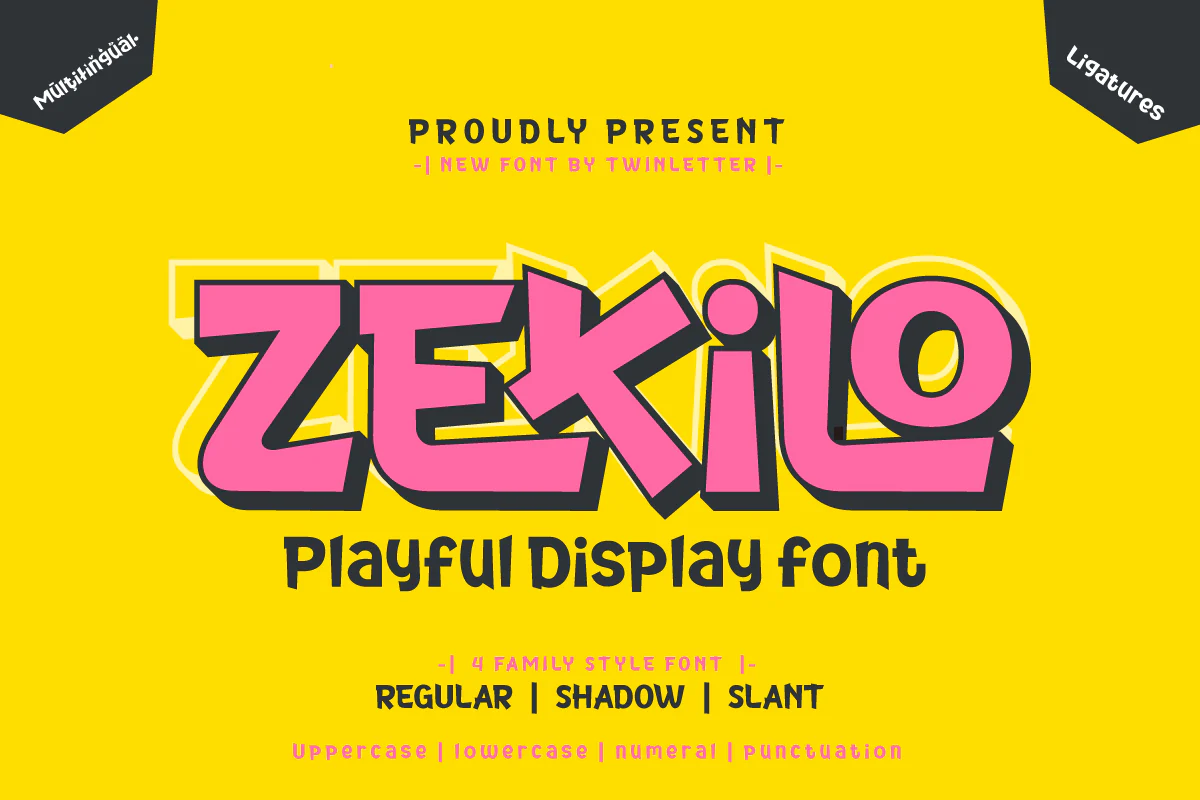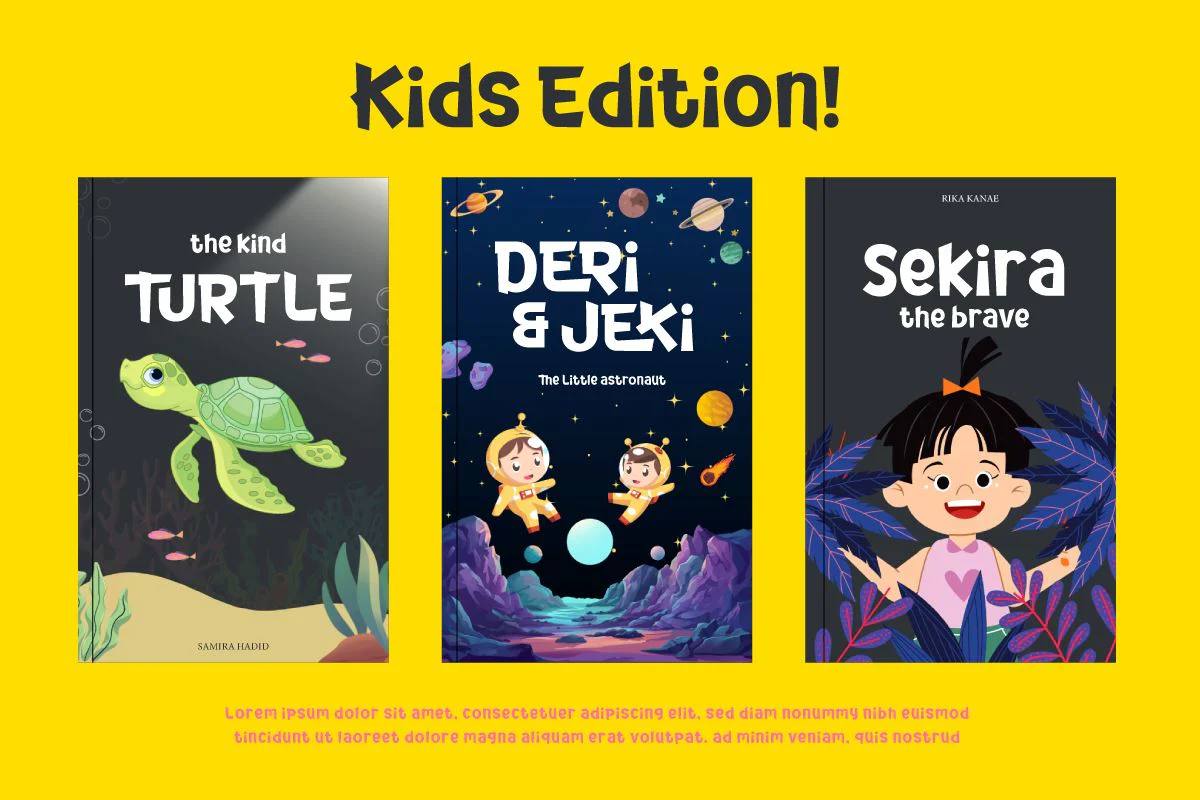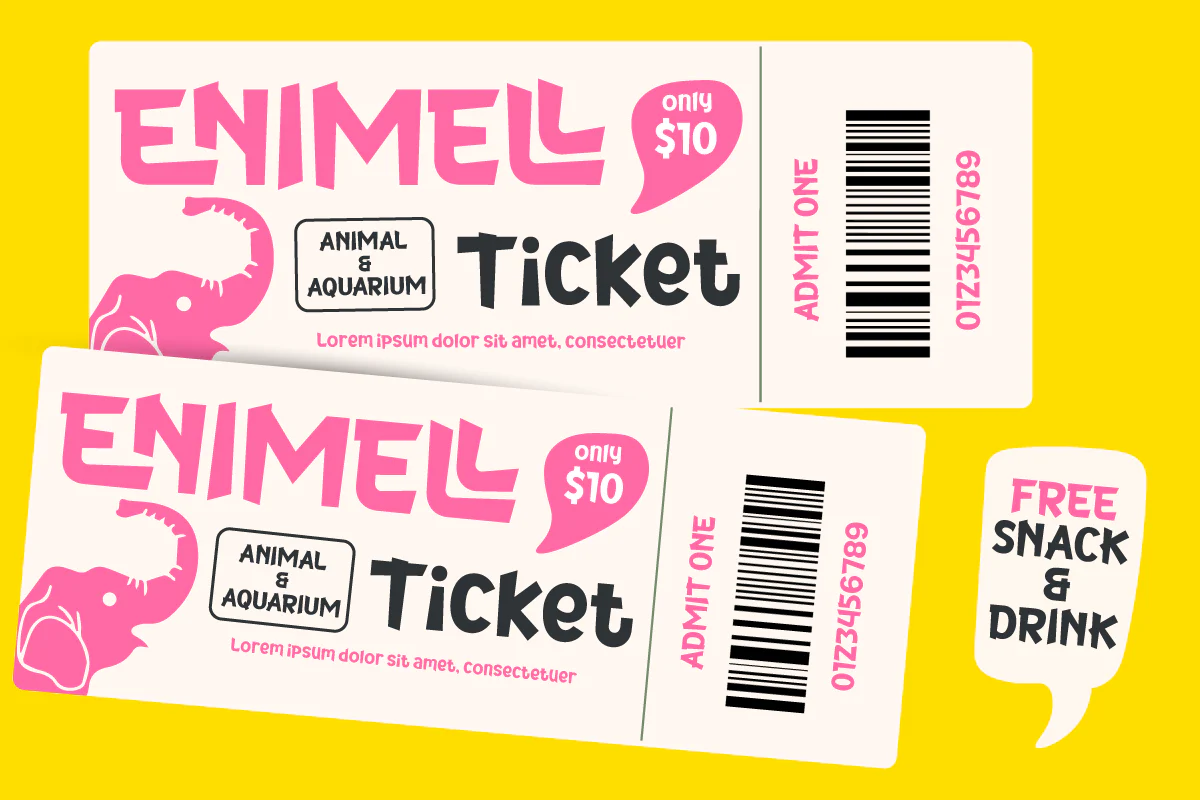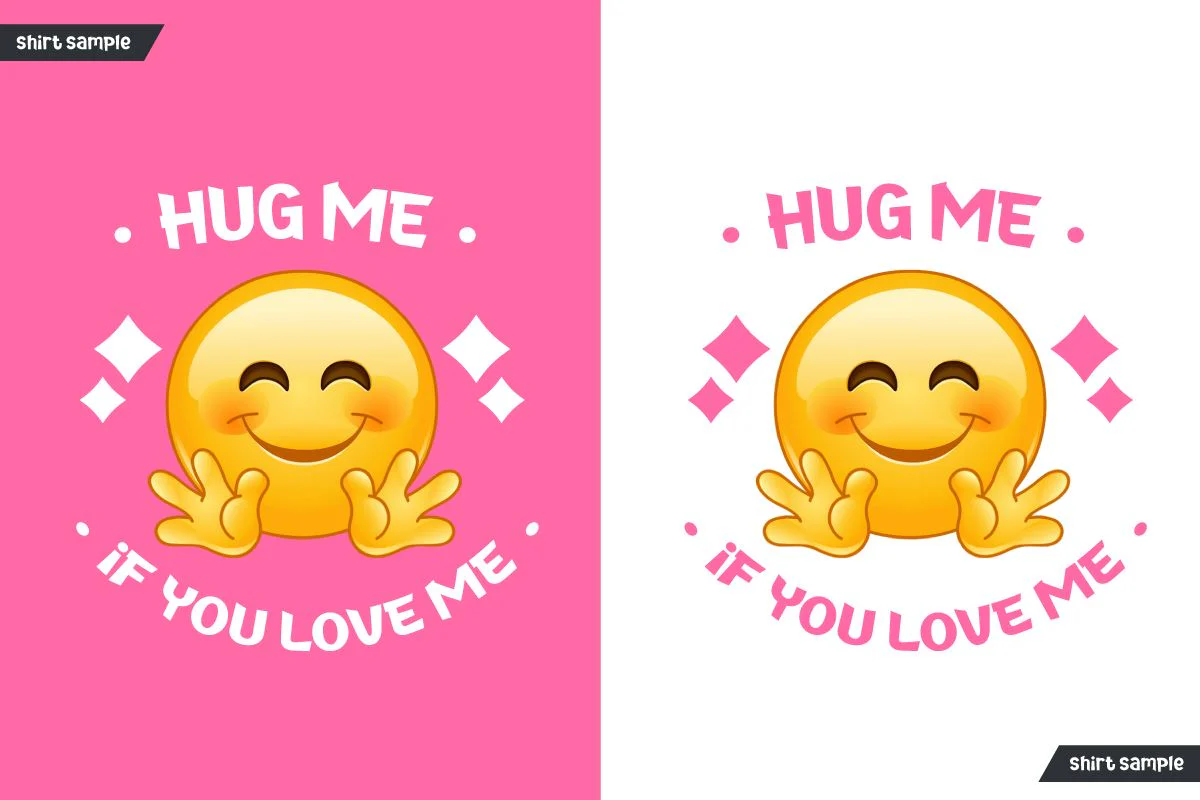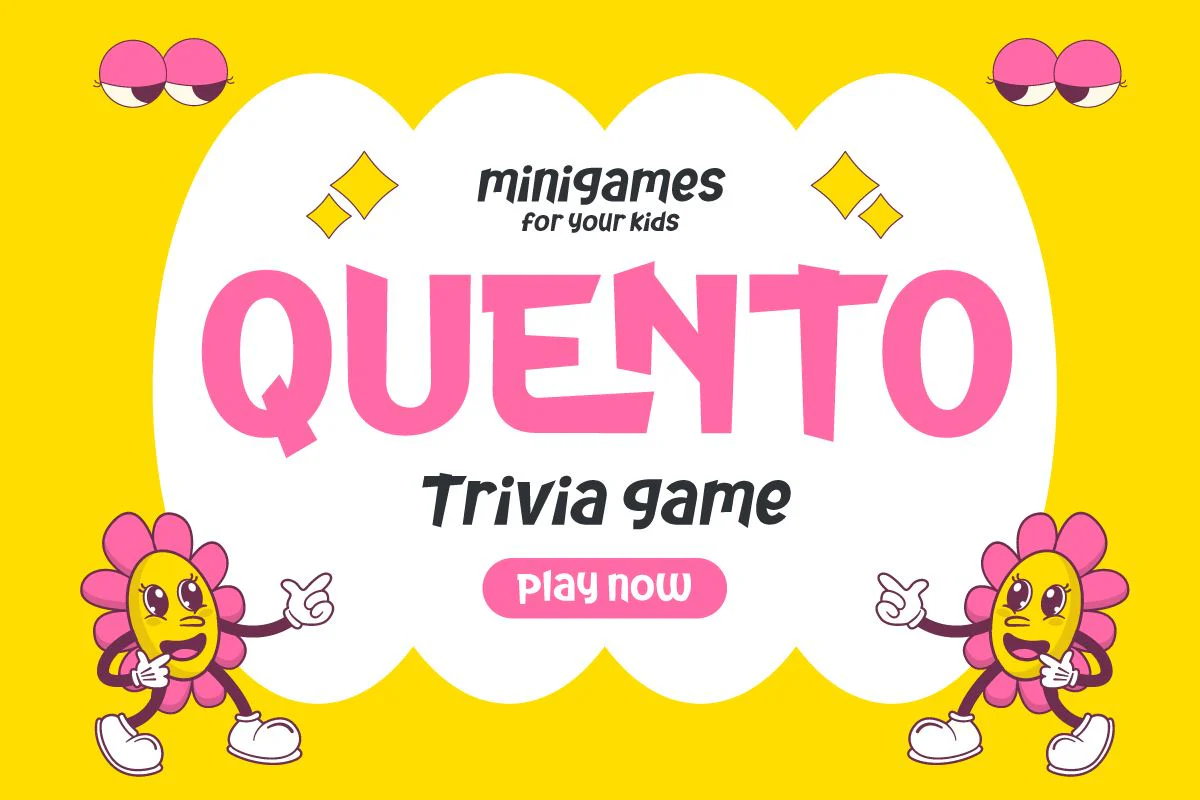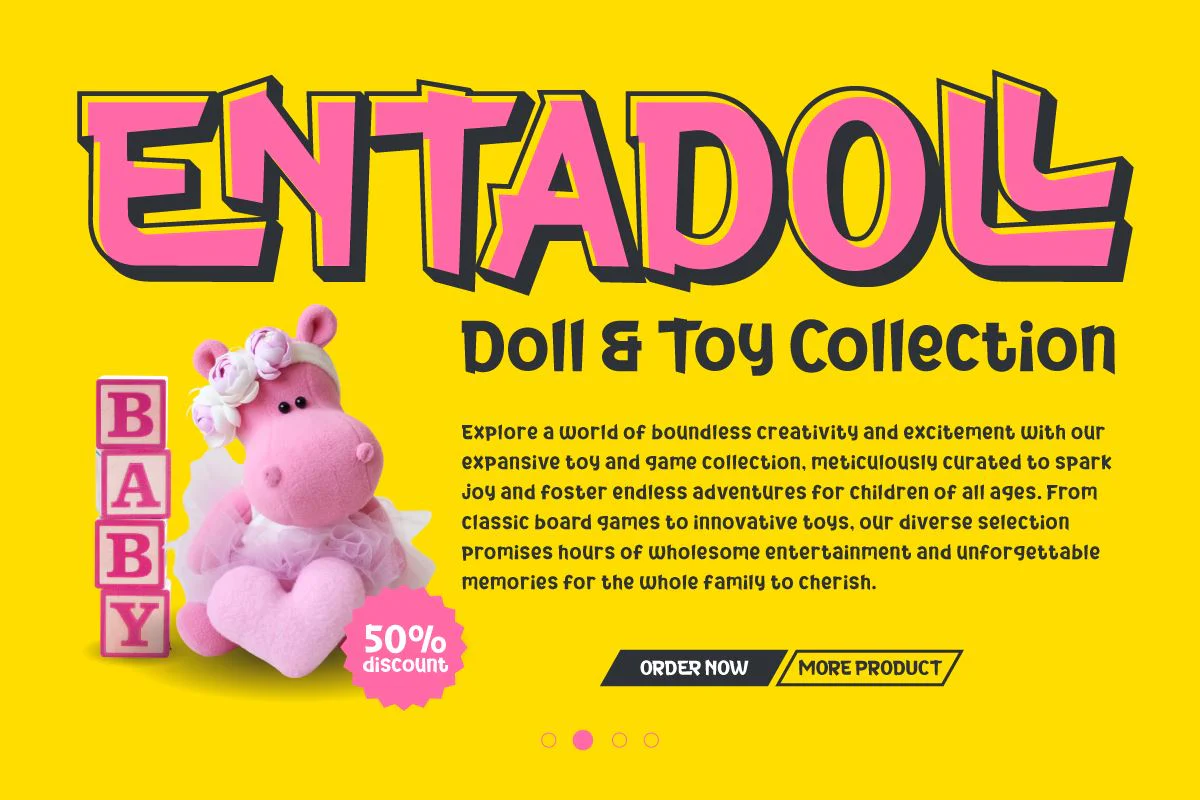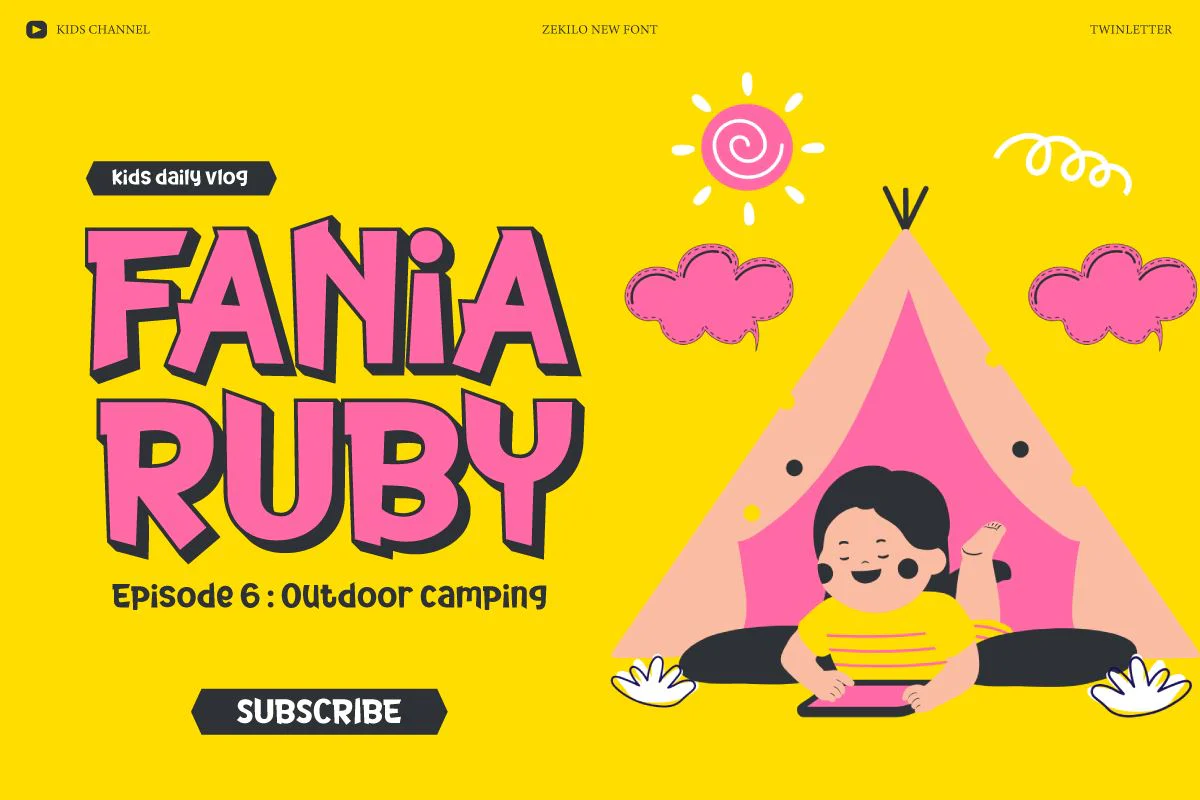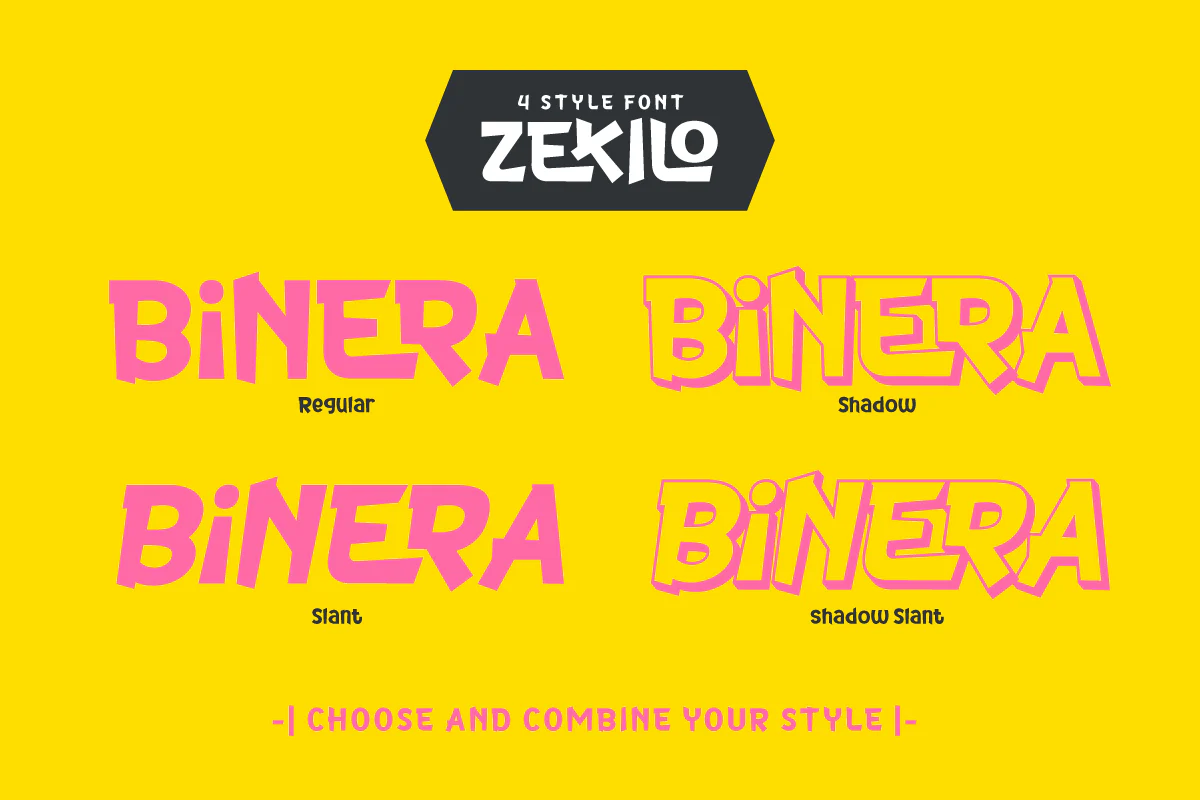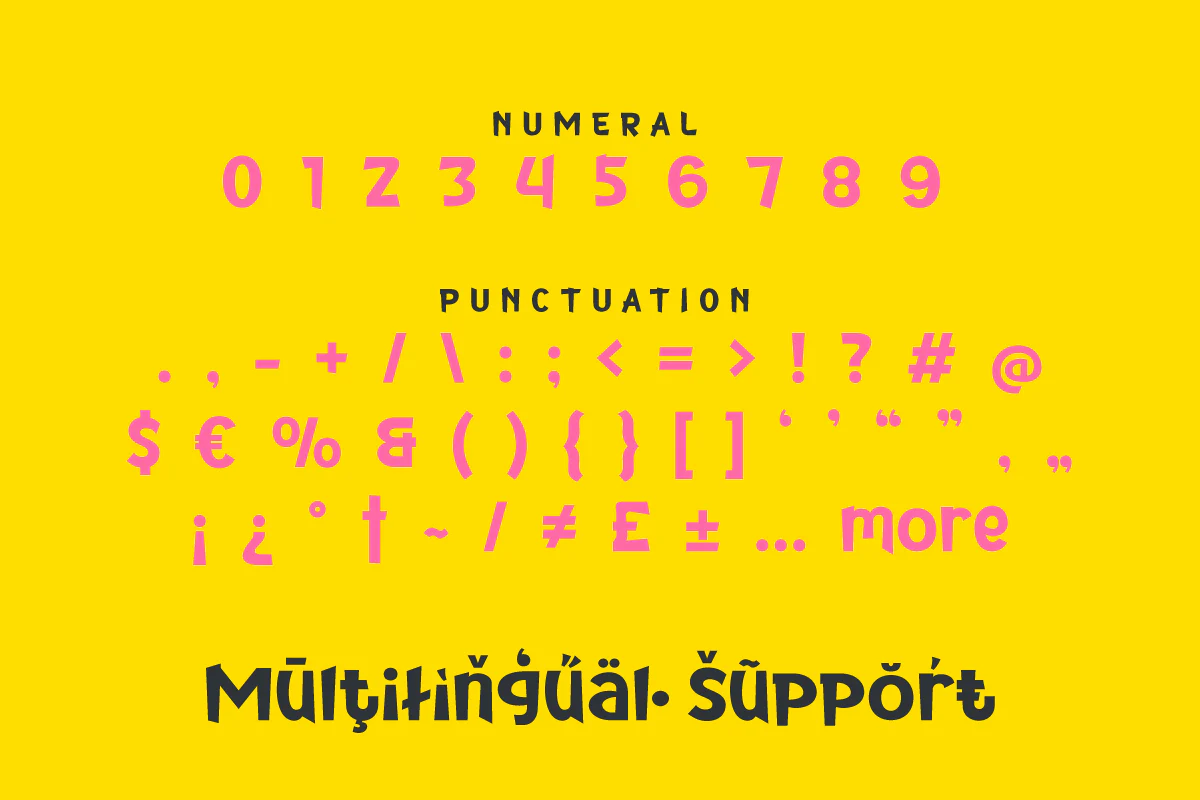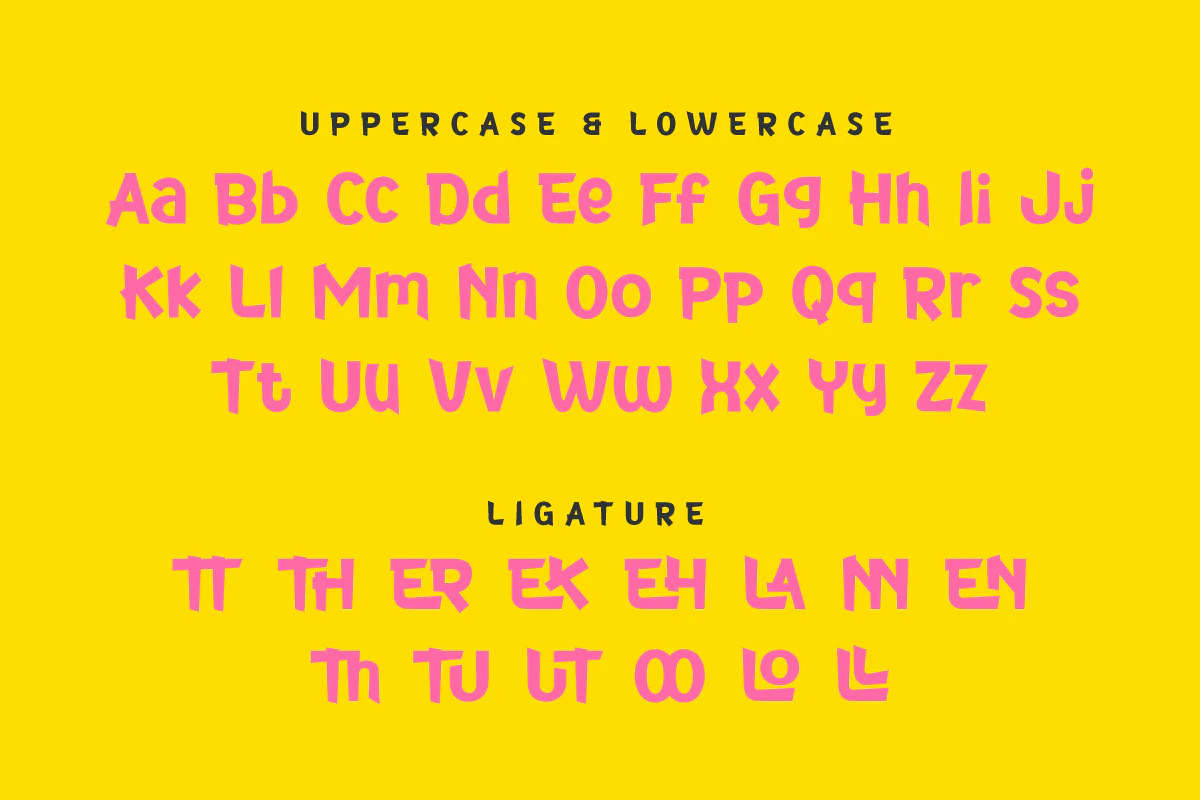
Zekilo - Playful Display Font
Soften your designs with a light and cheerful touch from Zekilo, a display font that seduces with its cheerfulness. Created to add vibrancy and brightness to any project, Zekilo brings a fun and inviting feel. Suitable for poster designs, promotional materials, or other creative products, this font exudes unmatched joy, making each of your works more lively and colorful.